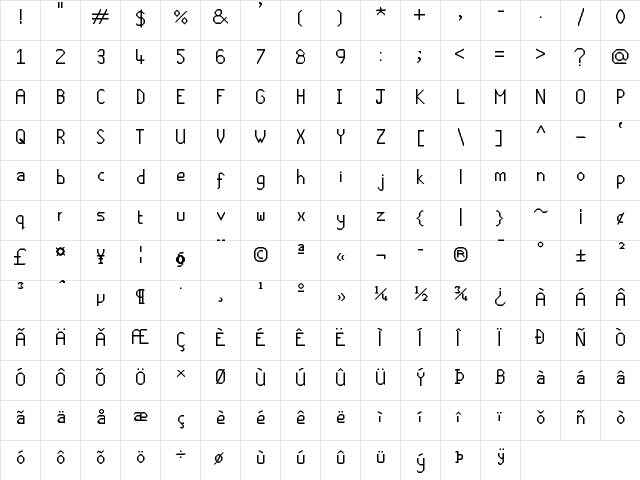
RuneScape Smooth Chat Regular
| Designer | WolfieMario |
Design Context for RuneScape Smooth Chat Typeface
RuneScape Smooth Chat offers clean, dependable letterforms without strong stylistic allegiance, making it a practical choice for designers who need flexibility.